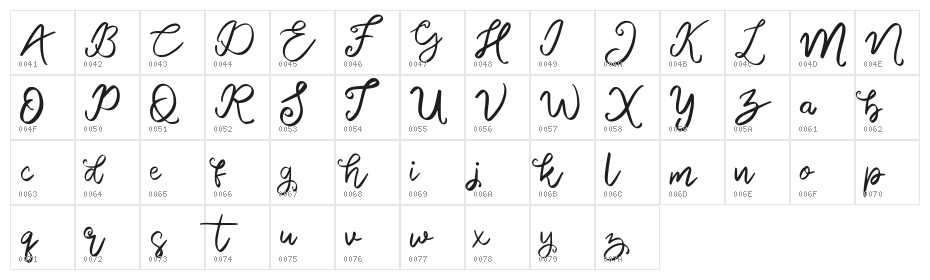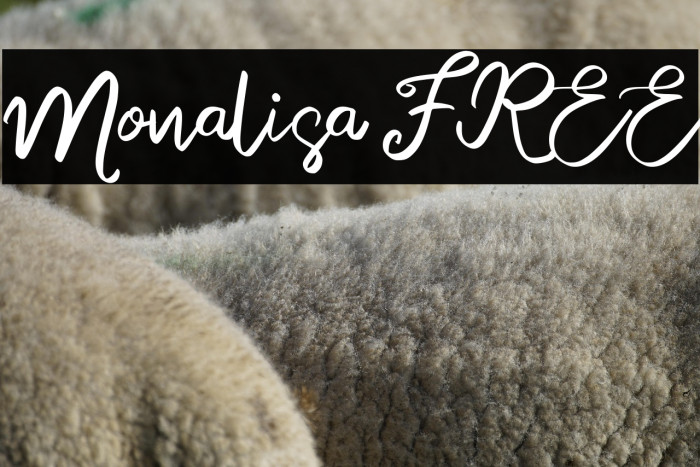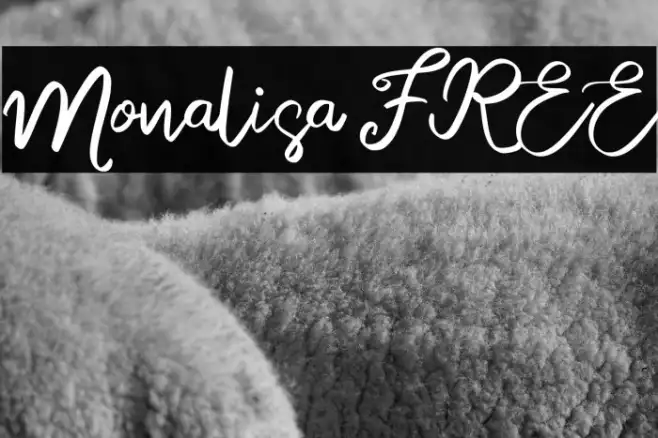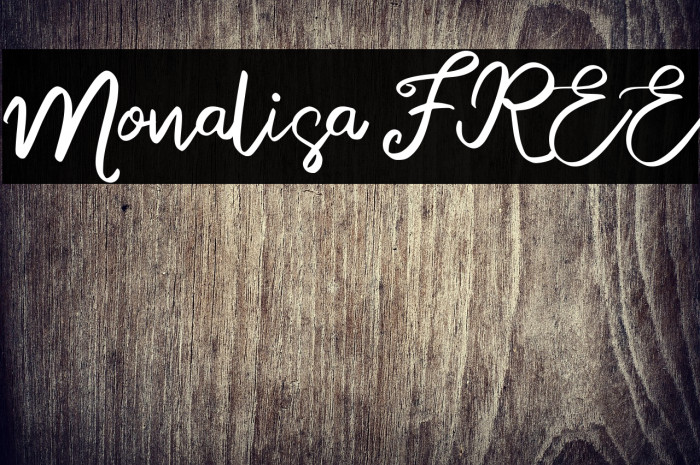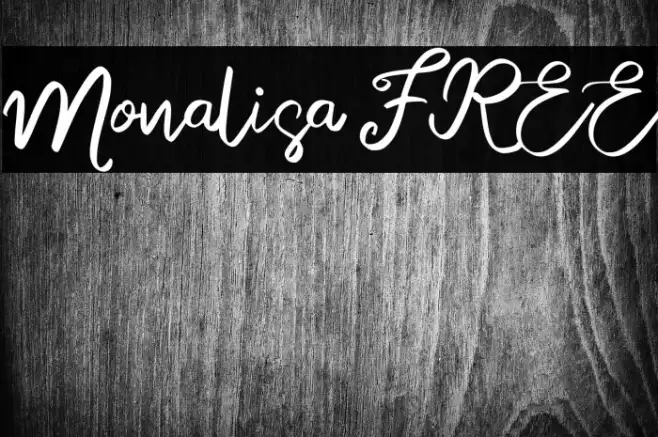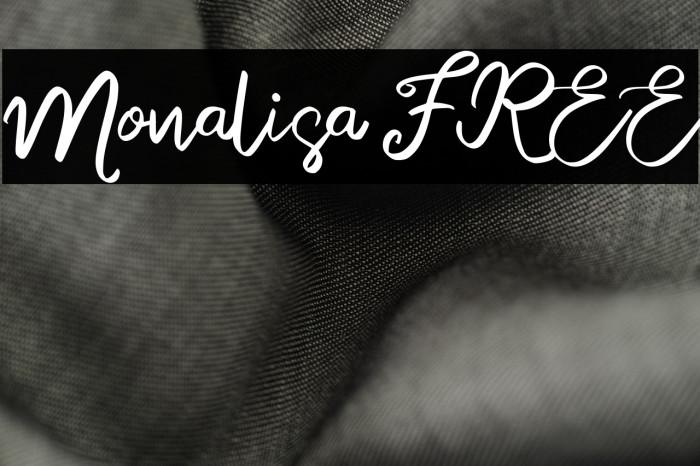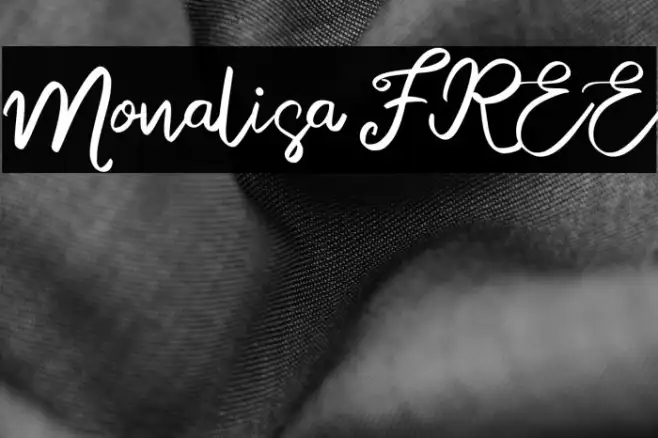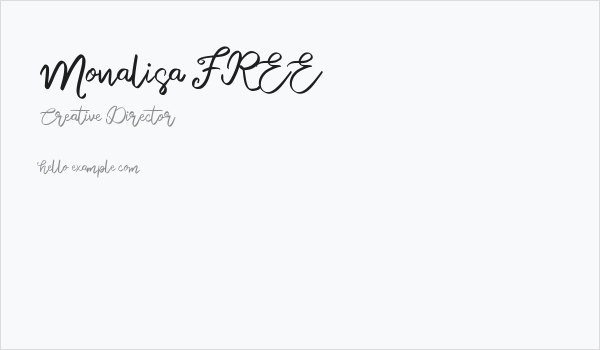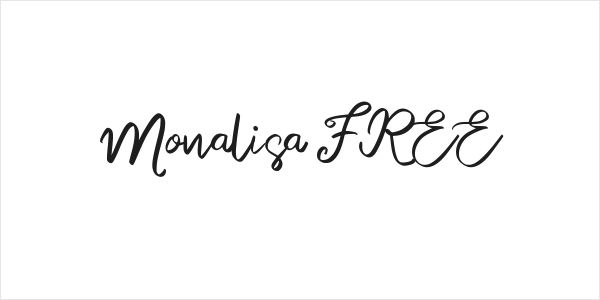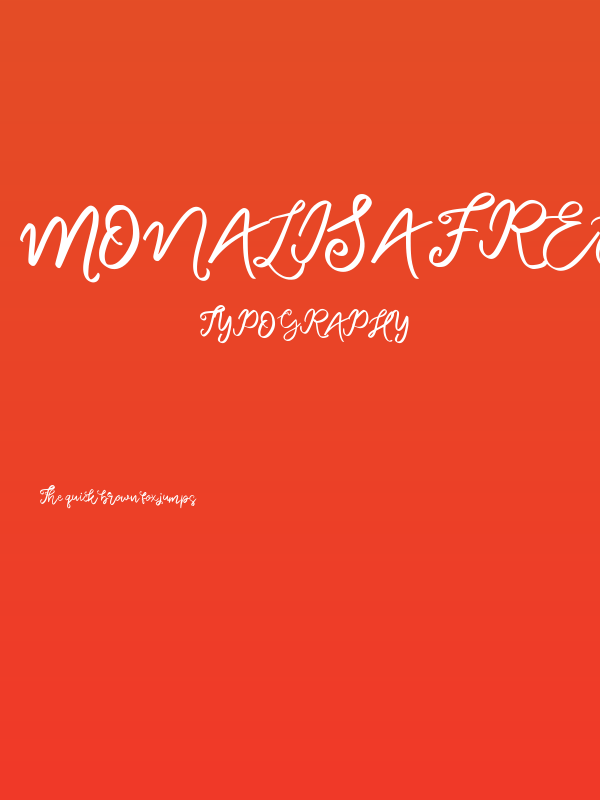
Monalisa FREE Font
Monalisa FREE Description
This font exudes a playful and elegant script style, characterized by its flowing, cursive letterforms. The uppercase letters are adorned with intricate loops and swirls, adding a touch of sophistication and flair. The lowercase letters maintain a consistent flow, with some characters featuring unique flourishes that enhance the overall aesthetic. The font's design is both artistic and legible, making it suitable for a variety of creative applications. Its whimsical nature is balanced by a clear structure, ensuring readability while maintaining an artistic appeal. The numbers and special characters are designed to complement the letterforms, ensuring a cohesive look across all text elements.
Use CaseLogos, Invitations, Decorative text
Proposed ProjectsIdeal for wedding invitations, greeting cards, branding projects, and decorative quotes.